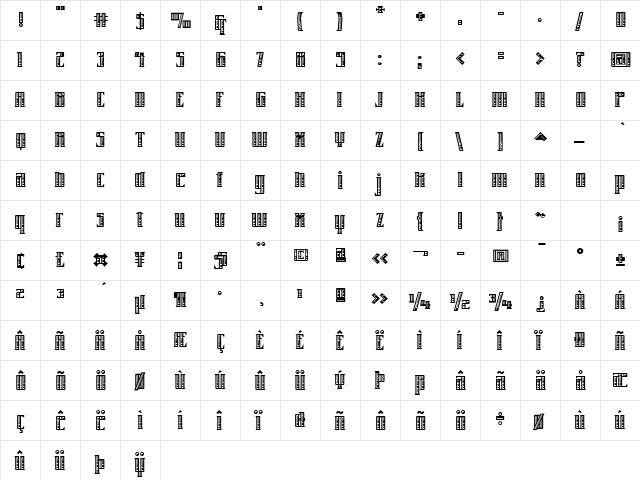
Farrier ICG Shaded
| Style | Shaded |
Design Context for Farrier ICG Typeface
Farrier ICG is a composed and adaptable typeface that performs quietly and consistently across a wide range of design contexts.